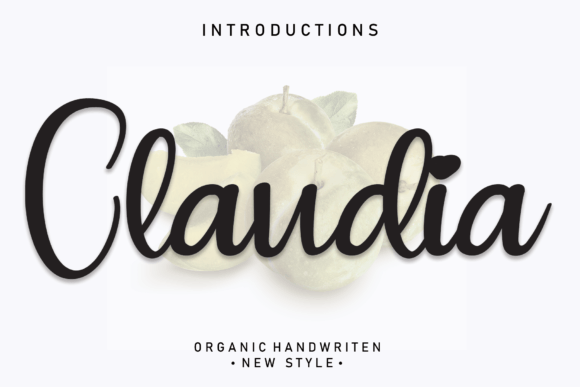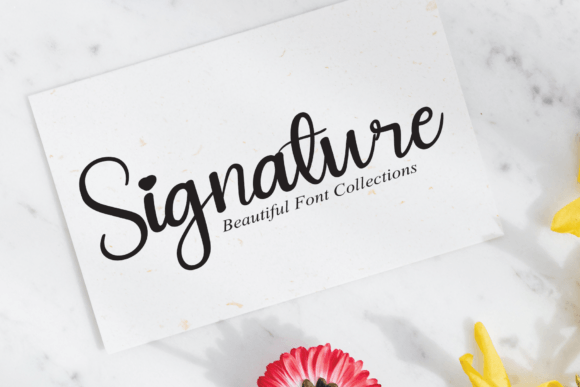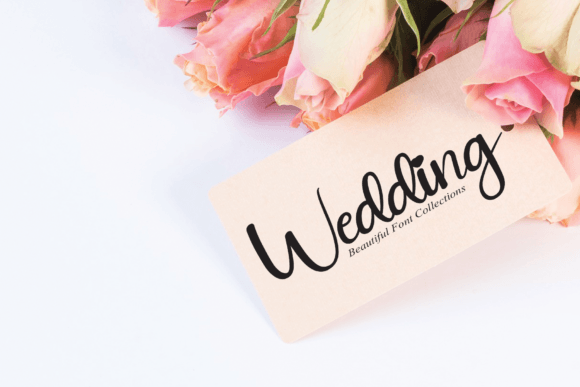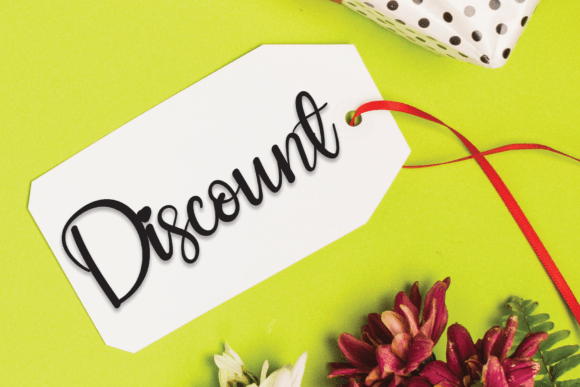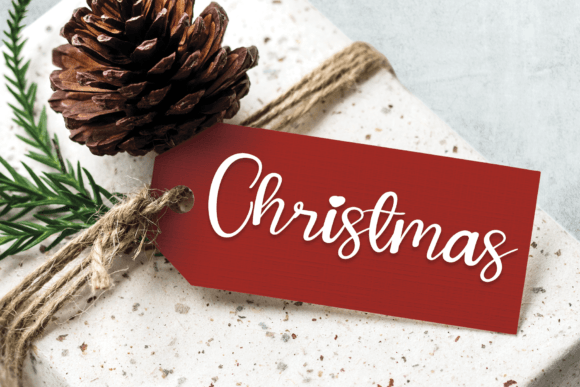
Claudia Font
Claudia Handwritten Font – Fun and Friendly Typeface
The Claudia Handwritten Font is a playful and versatile script typeface designed to add warmth and charm to your creative projects. With its casual handwritten strokes and approachable flow, it fits seamlessly into both digital and print design. Whether you’re creating greeting cards, invitations, or social media posts, this font helps your work feel unique and engaging.
A Handwritten Script with Style
The Claudia Handwritten Font blends natural handwritten curves with clear readability. Its casual yet polished design gives projects an approachable look while maintaining professional balance. Because of this, it can be used confidently across personal and commercial projects.
Perfect for Crafts and Greeting Cards
One of the strongest uses of the Claudia Handwritten Font is in greeting cards, invitations, and crafts. Its friendly strokes make personal designs more expressive, while its smooth flow adds beauty to posters, thank-you notes, and DIY projects. This flexibility makes it a favorite among creatives.
The Claudia Handwritten Font adapts to a wide range of design needs. From product packaging and branding to social media graphics and event signage, it adds a friendly handwritten style. Its ability to combine playfulness with clarity ensures it suits both casual and professional contexts.
Why Designers Love Claudia Font
Designers appreciate the Claudia HandwrittenFont for its balance of creativity and usability. It is fun enough for playful designs, yet refined enough for branding and professional layouts. This dual quality makes it an essential addition to any font collection.
In summary, the Claudia HandwrittenFont is a fun, friendly, and versatile script typeface. With its smooth handwritten strokes, quick installation, and wide usability, it is perfect for greeting cards, crafts, posters, and branding. Don’t miss the chance to download Claudia HandwrittenFont and add charm to your next project.